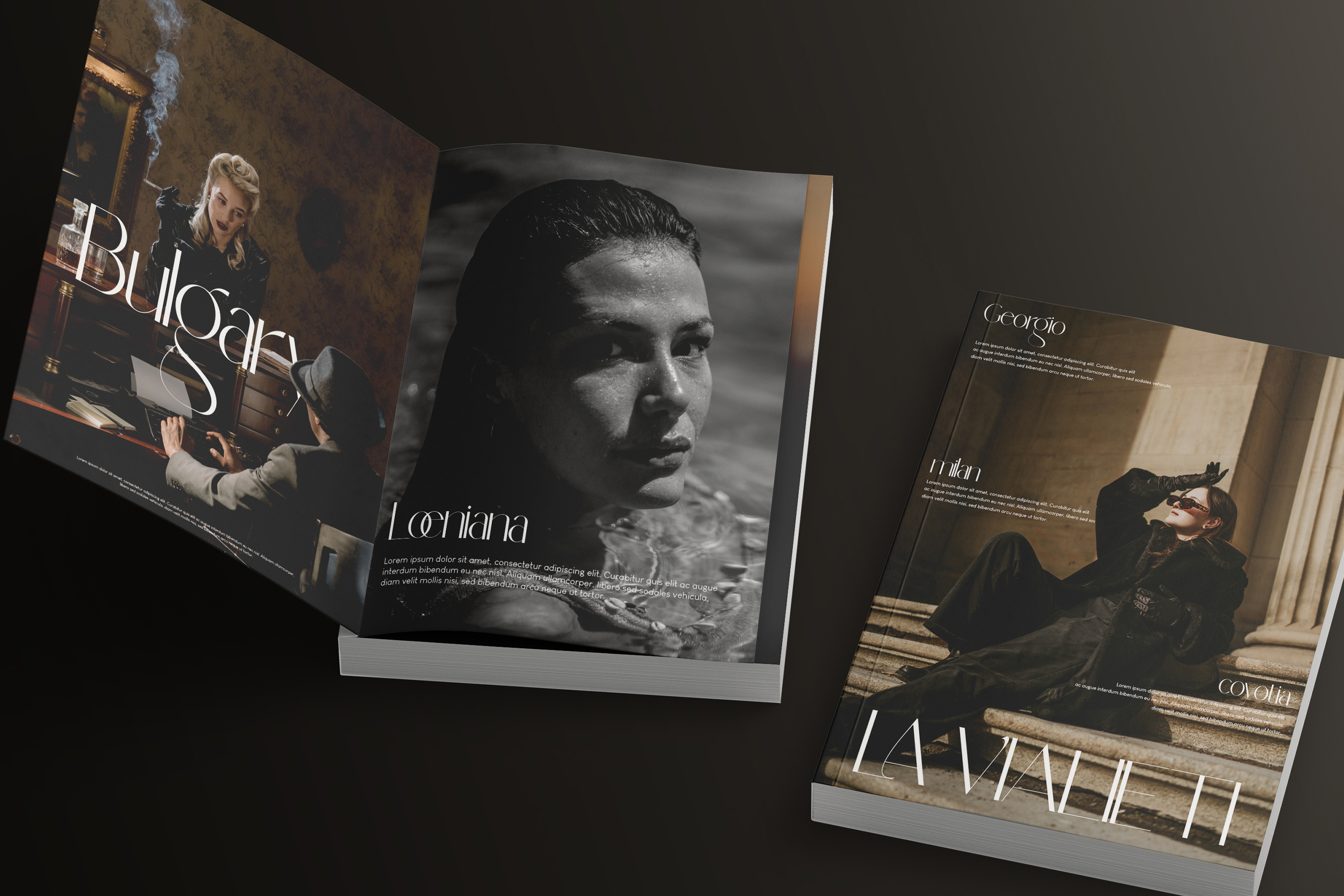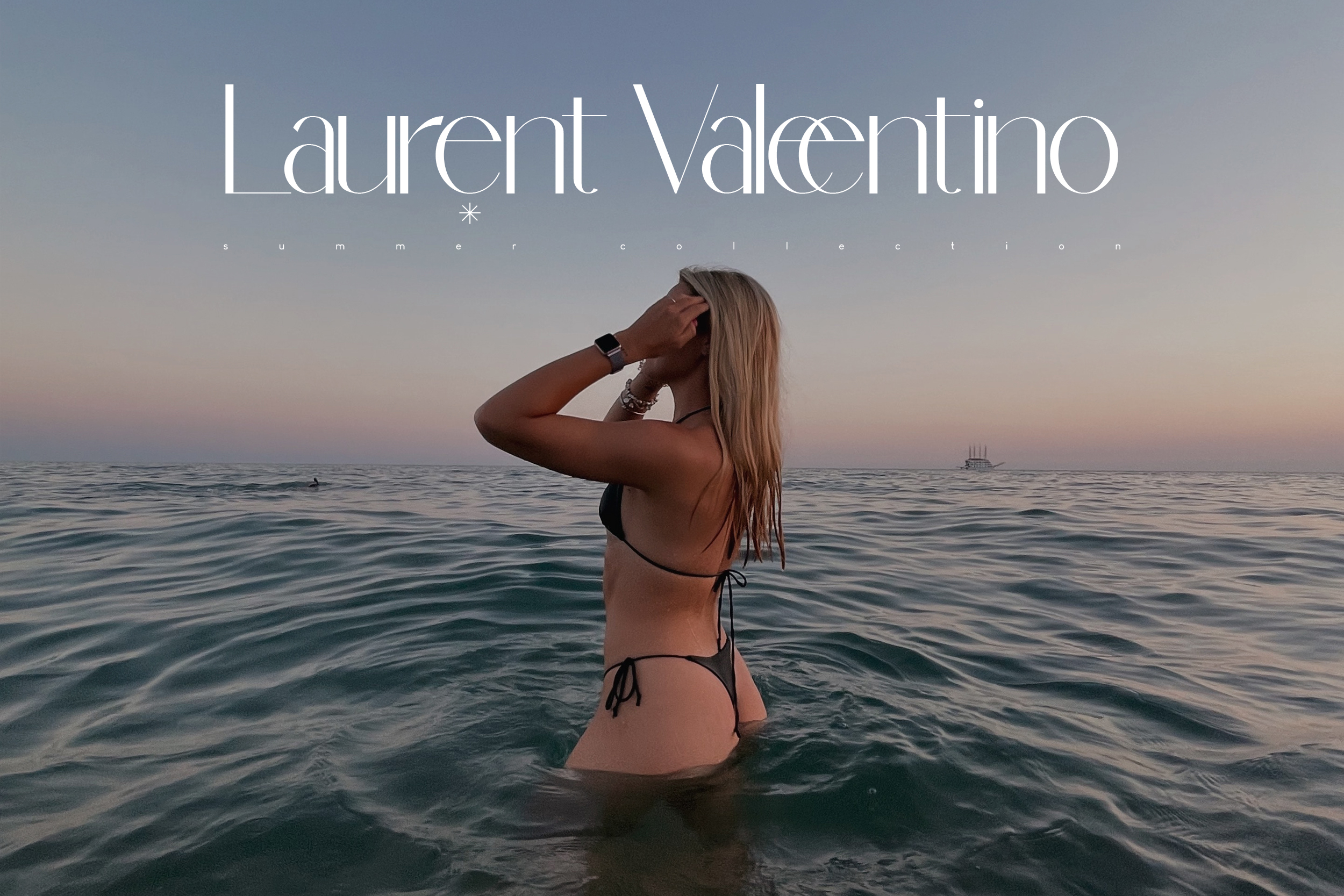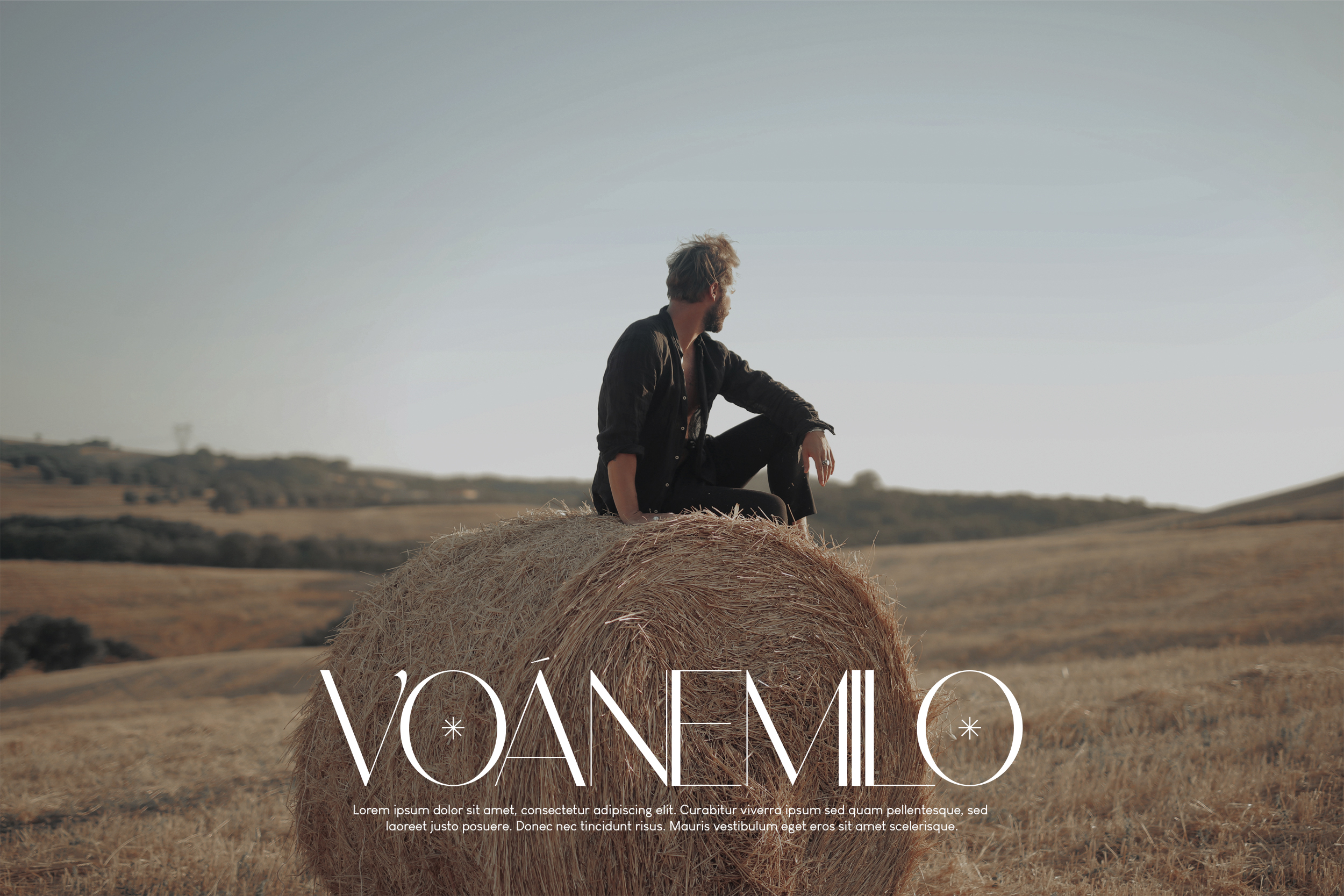
Dolce Gargia Font
Introducing Dolce Gargia Font, a classic modern sans serif with aesthetic look. Perfect for who needing a touch of elegancy, stylish, classy, beautiful thin, and modernity for their design.